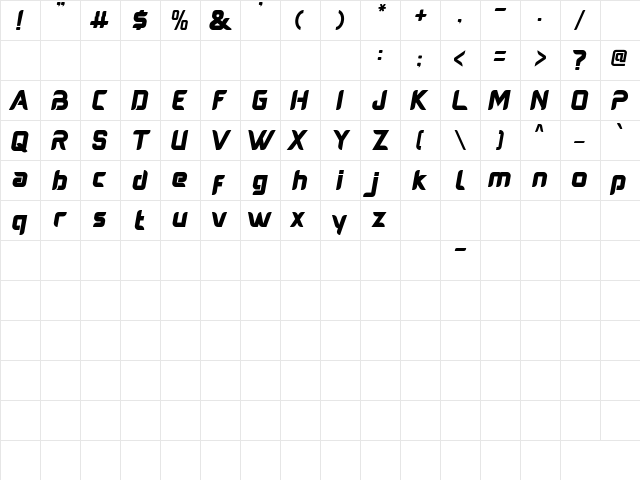
Austere Regular
Design Context for Austere Typeface
Austere offers clean, dependable letterforms without strong stylistic allegiance, making it a practical choice for designers who need flexibility.
Pro Tip: Use Austere in both headline and body roles to test its range before committing to a single application.